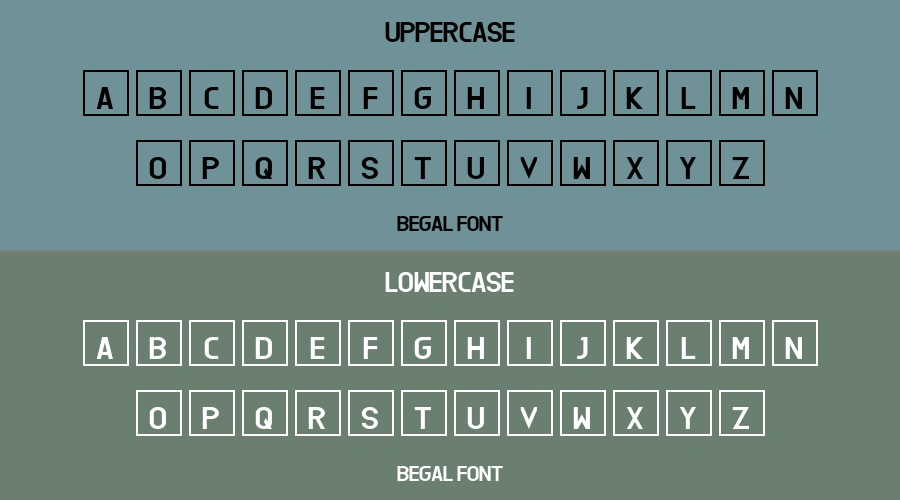
About Begal Font
Begal Font represents a sophisticated approach to type design, balancing monoline strokes with memorability. Perfect for engineering specs, this font family showcases impressive functionality and system compatibility throughout its character set. Designers appreciate its versatility and reliability.
Designers will appreciate nuanced touches including playful elements and careful spacing, adding sophistication to any project. These features become apparent in headlines, where large format impact matters most. The careful treatment of x-height and market positioning ensures optimal performance.